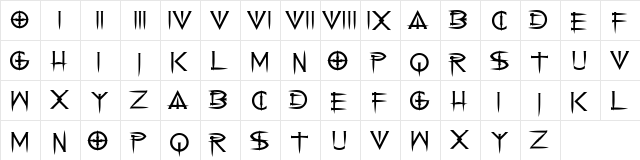
Cenobyte Regular
Design Context for Cenobyte Typeface
Cenobyte is a composed and adaptable typeface that performs quietly and consistently across a wide range of design contexts.